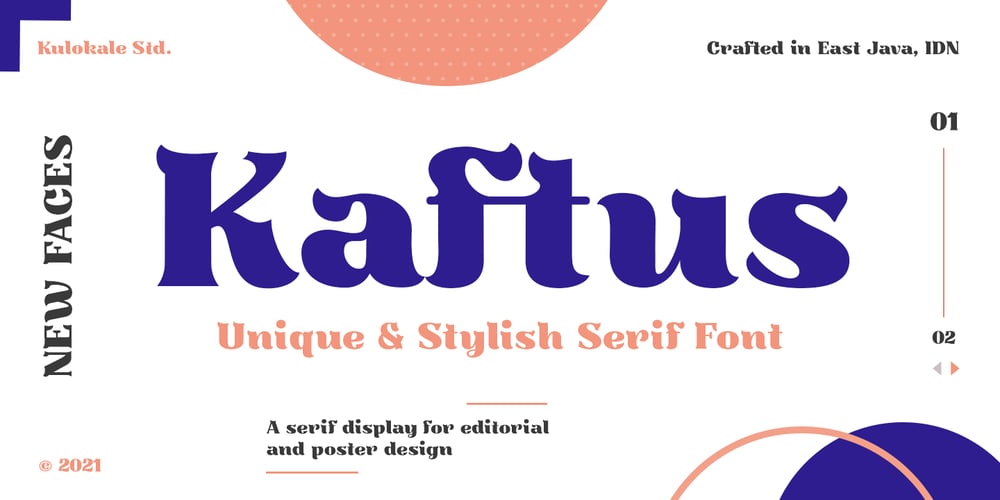
Kaftus Font Family was designed by Eko Nur Cahyo and published by Kulokale. Kaftus contains 1 styles and family package options. Kaftus is a unique and stylish serif font. Kaftus is well-suited for advertising, branding, logotypes, packaging, titles, headlines and editorial design.This font is encoded with Unicode PUA, which allows full access to all additional characters without having special design software. Mac users can use Font Book, and Windows users can use Character Map to view and copy one of the extra characters to paste into your favorite text editor / application.We hope you enjoy the font. Thanks for purchasing and have fun!